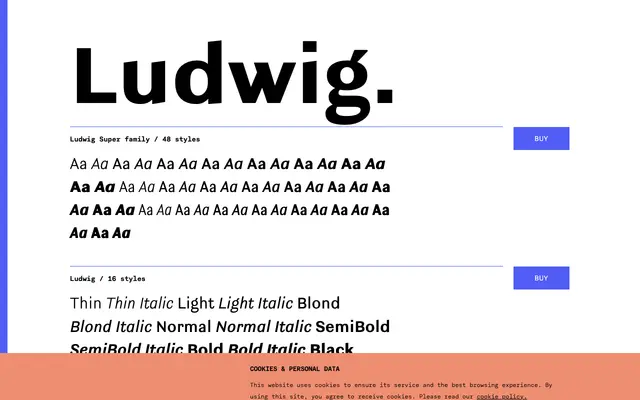
Ludwig
A 48-style grotesque superfamily spanning three widths and eight weights, from Thin to ExtraBlack, each with matching italics.
Ludwig is offered in three width variants — standard, SemiCondensed and Condensed — each running across eight weights from Thin to ExtraBlack with accompanying italics, totalling 48 styles. The family includes a broad set of OpenType features including small capitals, old-style figures, tabular figures, fractions and multiple stylistic sets. Its range of widths and weights makes it suited to editorial and identity work requiring consistent type across varied column measures and hierarchies.
Ludwig presents as a contemporary grotesque sans-serif with a wide range of weights and widths. Its structure, weight range from Thin to ExtraBlack, and condensed variants are consistent with the grotesque tradition.